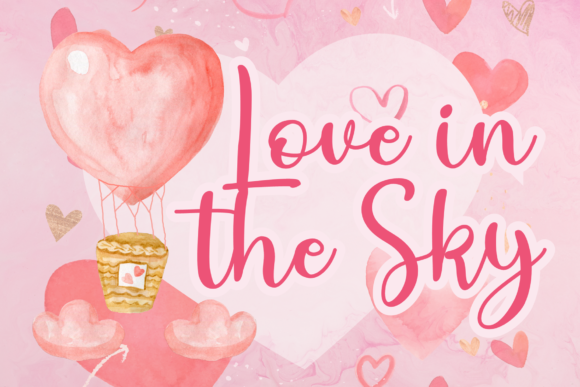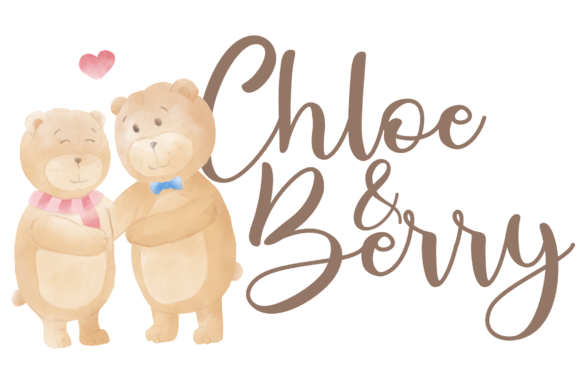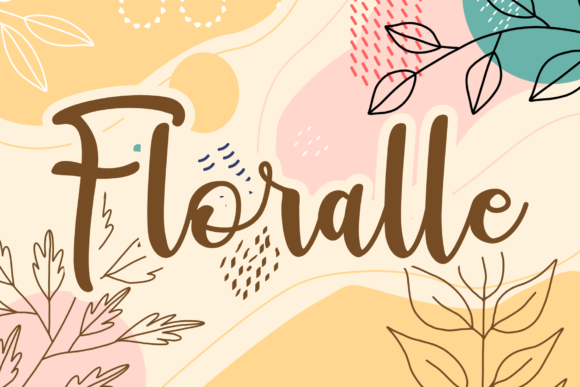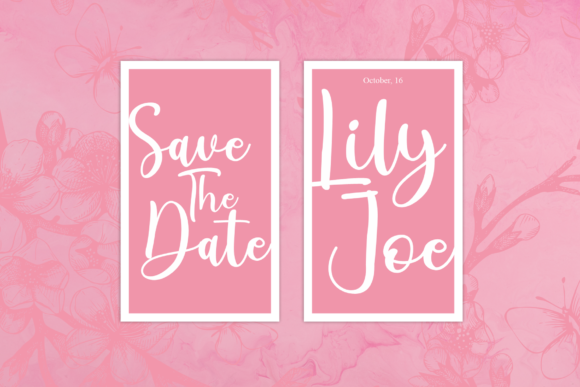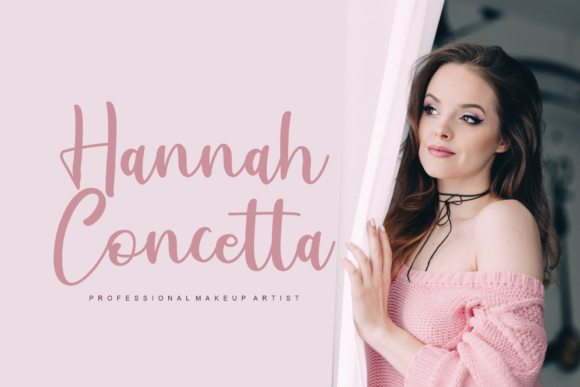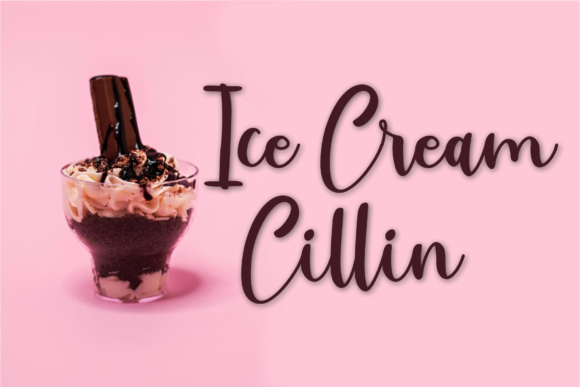
Introduction to Milly Beatry Font
As a designer, have you ever found yourself stuck in a creative rut, searching for the perfect font to bring your vision to life? I know I have. That’s why I’m excited to share with you one of my favorite design resources – the Milly Beatry Font. This smooth and elegant handwritten font has a lovely touch that’s perfect for a wide variety of designs.
Whether you’re working on a high-quality project or just need a beautiful font for a free download, Milly Beatry Font is a valuable addition to any designer’s toolkit. With its endless variations, you can have fun experimenting with different styles and combinations to create unique and eye-catching designs.
From transparent backgrounds to intricate details, the Milly Beatry Font is a design resource that’s sure to inspire your next creative project.
Key Features of Milly Beatry Font
- High-quality design resource ideal for creative projects, with a unique and elegant style.
- Available in a transparent background format, allowing for seamless integration into various designs.
- Features a sophisticated and modern design, perfect for branding, logos, and typography-based creative projects.
- Designed to be scalable, with a high resolution of 300 DPI, ensuring crisp and clear text even at larger sizes.
- Includes a wide range of characters, including uppercase and lowercase letters, numbers, and punctuation marks, making it a versatile design resource.
Honest Review: Milly Beatry Font
I recently had the opportunity to work with the Milly Beatry Font, and I must say it’s a great addition to any designer’s toolkit. The first thing that caught my attention was the font’s high quality and versatility, making it perfect for a wide range of creative projects.
- ✨ Elegant and sophisticated design aesthetic that works well for modern branding and design projects.
- ✨ Supports both Latin and Cyrillic languages, making it a great choice for multilingual design projects.
- ✨ Transparent background, allowing for easy layering and compositing in design applications.
While the Milly Beatry Font is a great addition to any designer’s toolkit, there are a few limitations to consider:
- ⚠️ Limited font weight options, which may require additional font purchases to achieve the desired look.
- ⚠️ Not suitable for use in situations where a more playful or casual font is required.
Overall, I’m impressed with the Milly Beatry Font and would highly recommend it to designers looking for a high-quality, versatile font for their creative projects. With a little creativity, the limitations of this font can be easily overcome, making it a valuable design resource for any project.
Milly Beatry Font is a high-quality, free download that can elevate your creative project. With its unique design and transparent background, this font is a valuable addition to any design resource collection.
Tips for Getting the Most Out of Milly Beatry Font
Experiment with different font sizes and colors to create visually appealing designs. Use Milly Beatry Font in combination with other design elements to add depth and interest to your project.
Milly Beatry Font is ideal for a variety of creative projects, including blog posts, social media graphics, and marketing materials. Its unique design and transparent background make it a popular choice for designers looking to add a touch of elegance to their work.